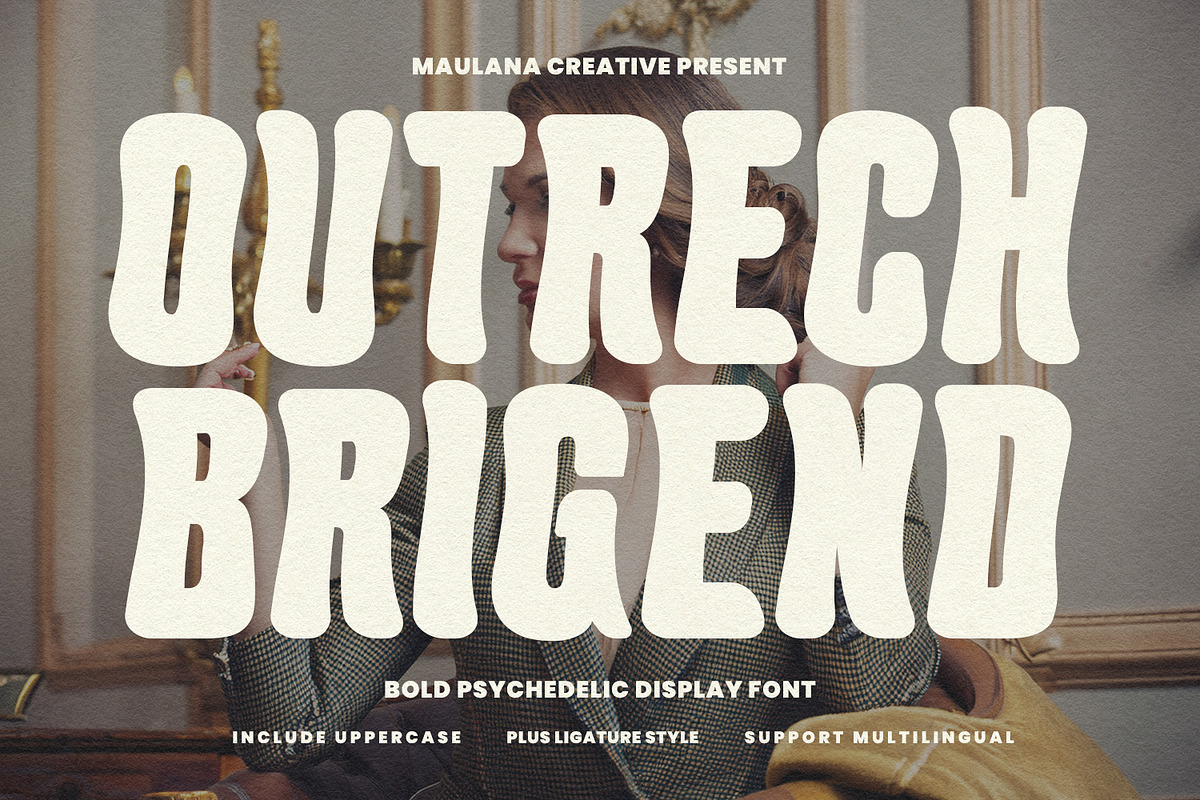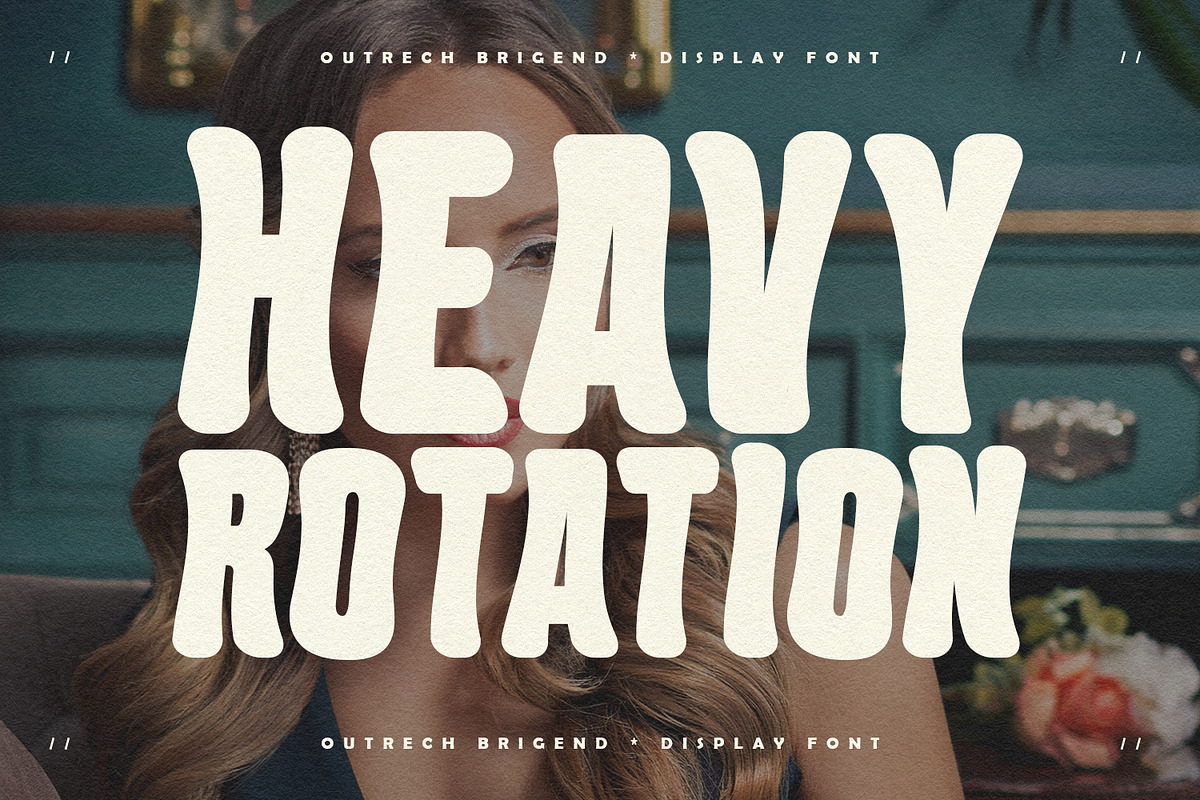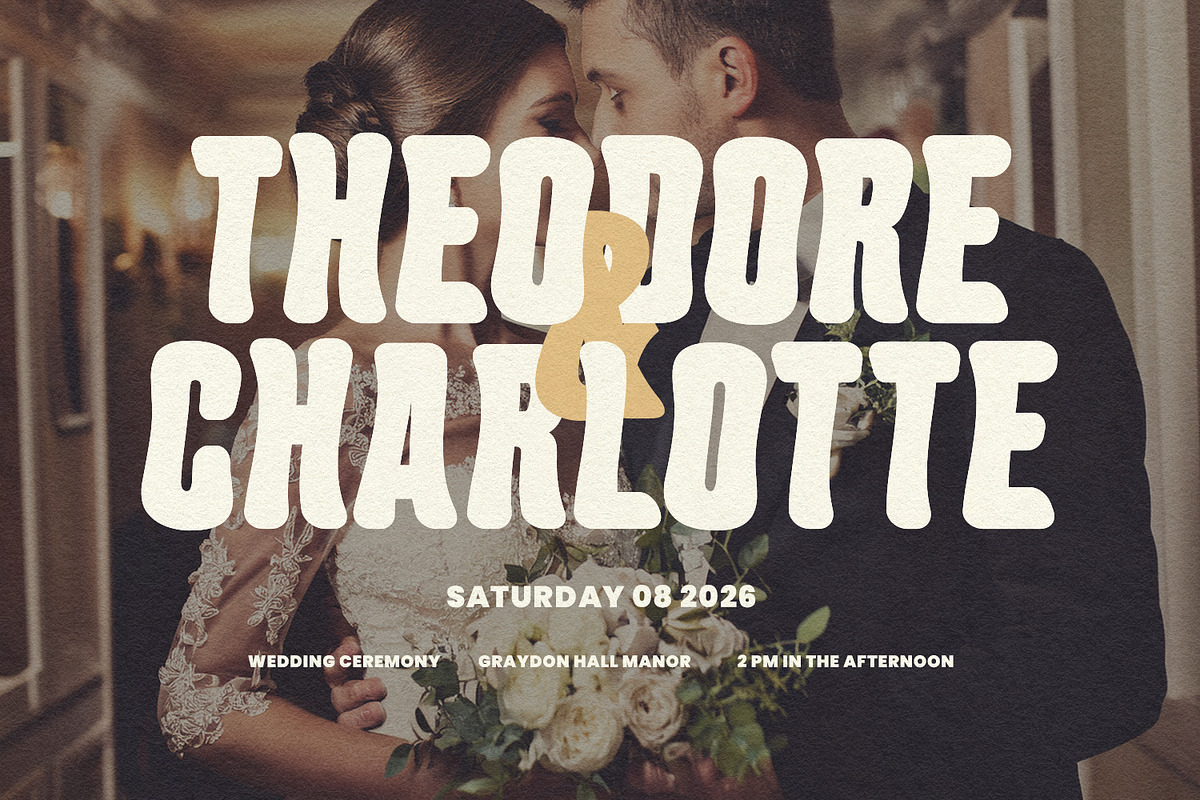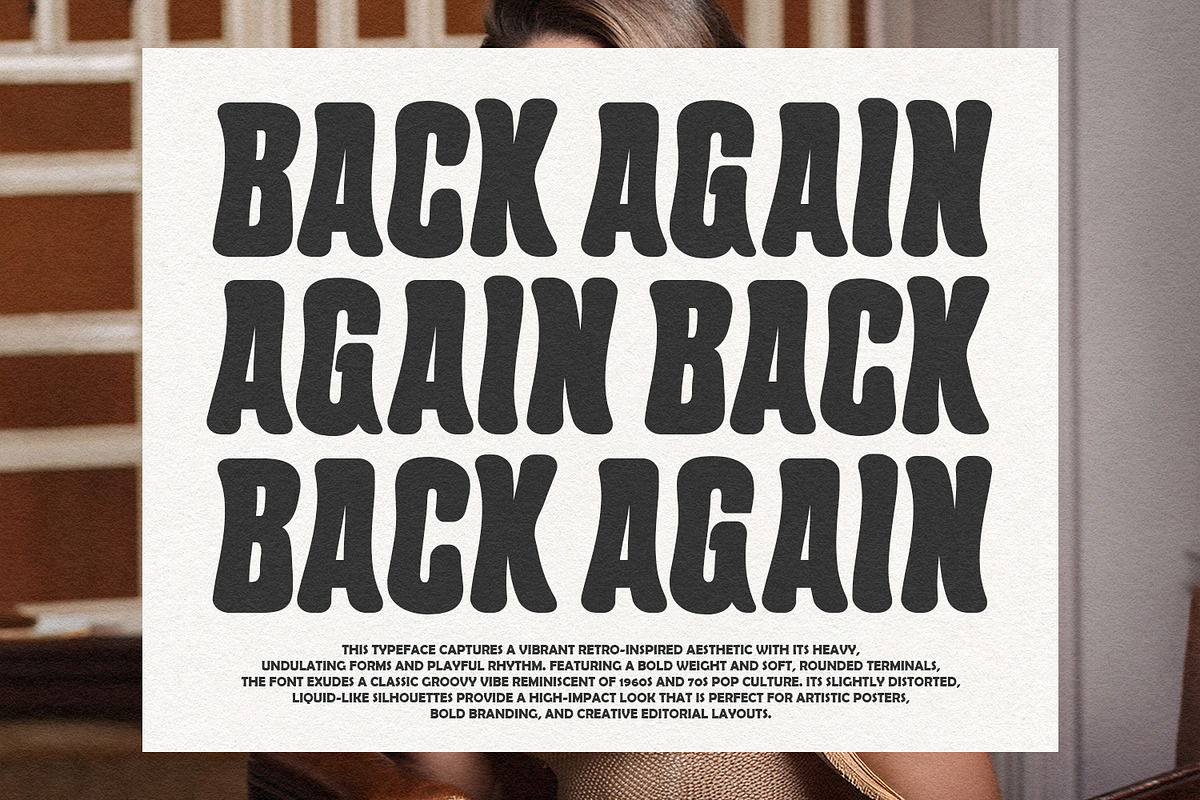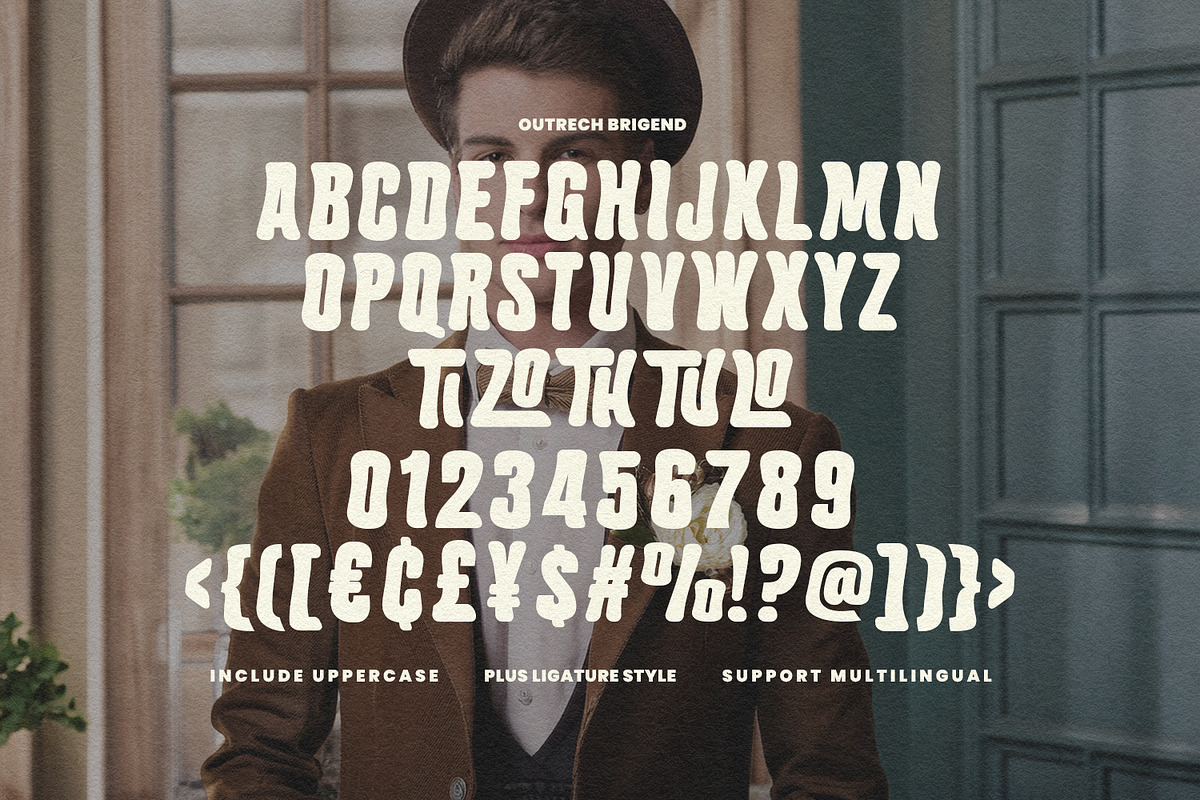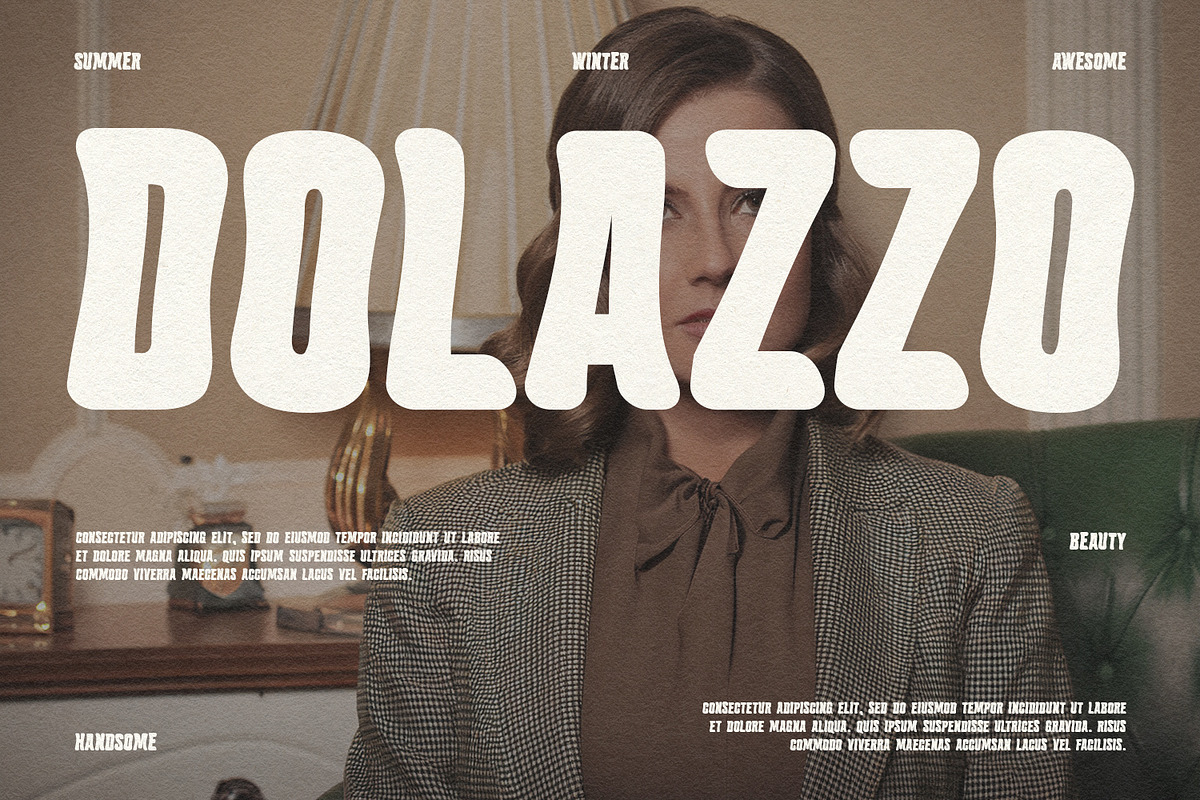
Outrech Brigend Bold Psychedelic
Outrech Brigend is a vibrant, retro-inspired display font that captures a classic groovy aesthetic through its heavy weight and undulating forms. Featuring soft, rounded terminals and a playful rhythm, this typeface exudes a 1960s and 70s pop culture vibe. Its slightly distorted, liquid-like silhouettes provide a high-impact look that is ideal for artistic posters, bold branding, and creative editorial layouts. The font includes uppercase characters, unique ligature styles, and multilingual support to ensure versatility across various design projects.